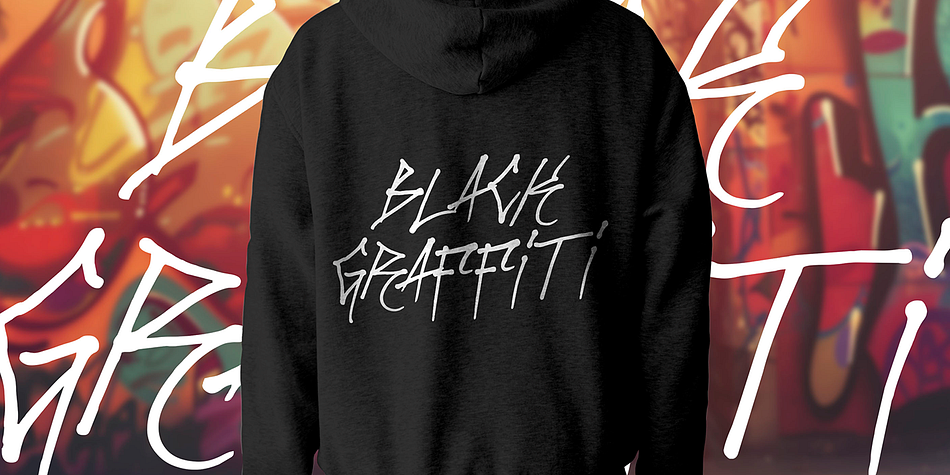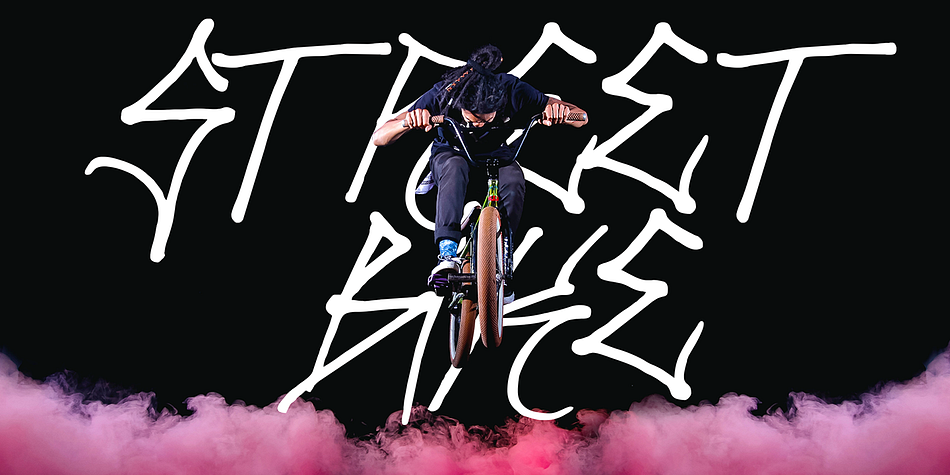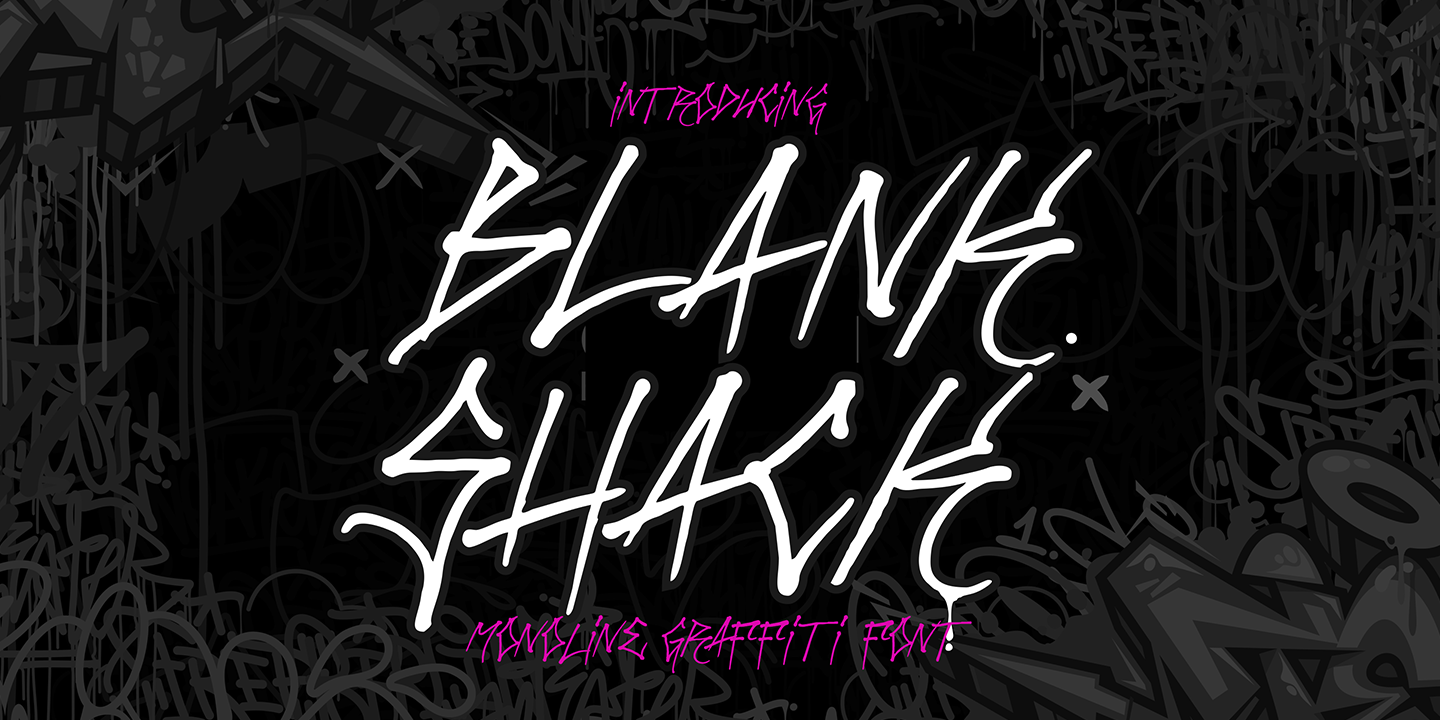
Black Shack
Black Shack is a display font family published by Cikareotype Studio.
“Blank Shack” is a thin monoline graffiti font that combines sleek, continuous lines with a modern urban edge. Its minimalist design is perfect for adding a touch of sophistication and style to your projects while retaining an authentic graffiti vibe. Ideal for street art, posters, branding, and any creative work that calls for a clean yet edgy typographic element, “Blank Shack” provides a unique and contemporary look to make your designs stand out.